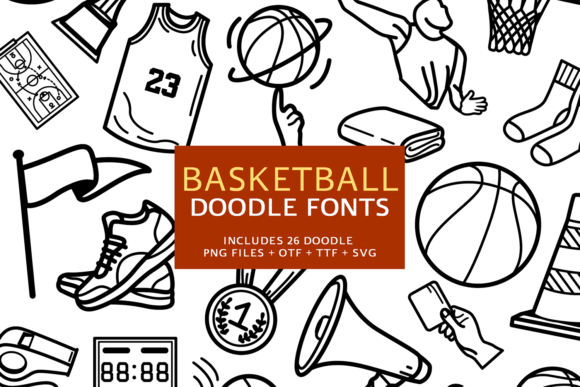
Basketball Doodle Font: A Charming Dingbats Font for Playful Designs
The Basketball Doodle Font is a delightful dingbats font that features playful illustrations, perfect for creating eye-catching designs with a touch of cuteness. This charming font is ideal for various design projects, including children’s books, greeting cards, and social media posts. In this article, we will explore the features and benefits of the Basketball Doodle Font, and how it can elevate your designs to the next level.
What is a Dingbats Font?
A dingbats font is a type of font that features graphical symbols, shapes, and illustrations instead of traditional letters and numbers. Dingbats fonts are often used to add a touch of personality and whimsy to designs, making them perfect for projects that require a playful and creative approach. The Basketball Doodle Font is a unique dingbats font that showcases a collection of basketball-themed illustrations, making it an excellent choice for sports-related designs and projects.
Features of the Basketball Doodle Font
The Basketball Doodle Font boasts a wide range of features that make it an excellent choice for designers. Some of its notable features include:
- Playful illustrations: The font features a collection of playful basketball-themed illustrations, including basketballs, hoops, and other sports-related graphics.
- Cute and charming design: The font has a cute and charming design that is perfect for creating eye-catching designs with a touch of personality.
- Easily scalable: The font is easily scalable, making it suitable for various design projects, from small icons to large posters.
Benefits of Using the Basketball Doodle Font
The Basketball Doodle Font offers several benefits to designers, including:
- Unique and creative designs: The font allows designers to create unique and creative designs that stand out from the crowd.
- Time-saving: The font saves designers time and effort, as they can easily access a collection of pre-made illustrations instead of creating them from scratch.
- Consistency: The font ensures consistency in designs, as all the illustrations have a similar style and aesthetic.
- Fun and engaging: The font adds a touch of fun and engagement to designs, making them more appealing to audiences.
Use Cases for the Basketball Doodle Font
The Basketball Doodle Font is versatile and can be used in various design projects, including:
- Children’s books: The font is perfect for creating engaging and interactive children’s books that feature basketball-themed illustrations.
- Greeting cards: The font can be used to create fun and playful greeting cards for sports enthusiasts and basketball fans.
- Social media posts: The font is ideal for creating eye-catching social media posts that feature basketball-themed illustrations and graphics.
- Posters and flyers: The font can be used to create bold and attention-grabbing posters and flyers for sports events and tournaments.
Tips for Using the Basketball Doodle Font
Here are some tips for using the Basketball Doodle Font effectively:
- Experiment with different colors and textures: The font looks great in various colors and textures, so don’t be afraid to experiment and find the perfect combination for your design.
- Mix and match illustrations: The font features a range of illustrations, so try mixing and matching them to create unique and creative designs.
- Use the font consistently: Use the font consistently throughout your design to create a cohesive and professional look.
- Have fun: The Basketball Doodle Font is all about having fun and being creative, so enjoy the design process and let your imagination run wild!
The Basketball Doodle Font is a charming dingbats font that features playful basketball-themed illustrations, perfect for creating eye-catching designs with a touch of cuteness. With its unique features, benefits, and versatility, this font is ideal for various design projects, including children’s books, greeting cards, and social media posts. By following the tips outlined in this article, designers can unlock the full potential of the Basketball Doodle Font and create stunning designs that engage and delight audiences.